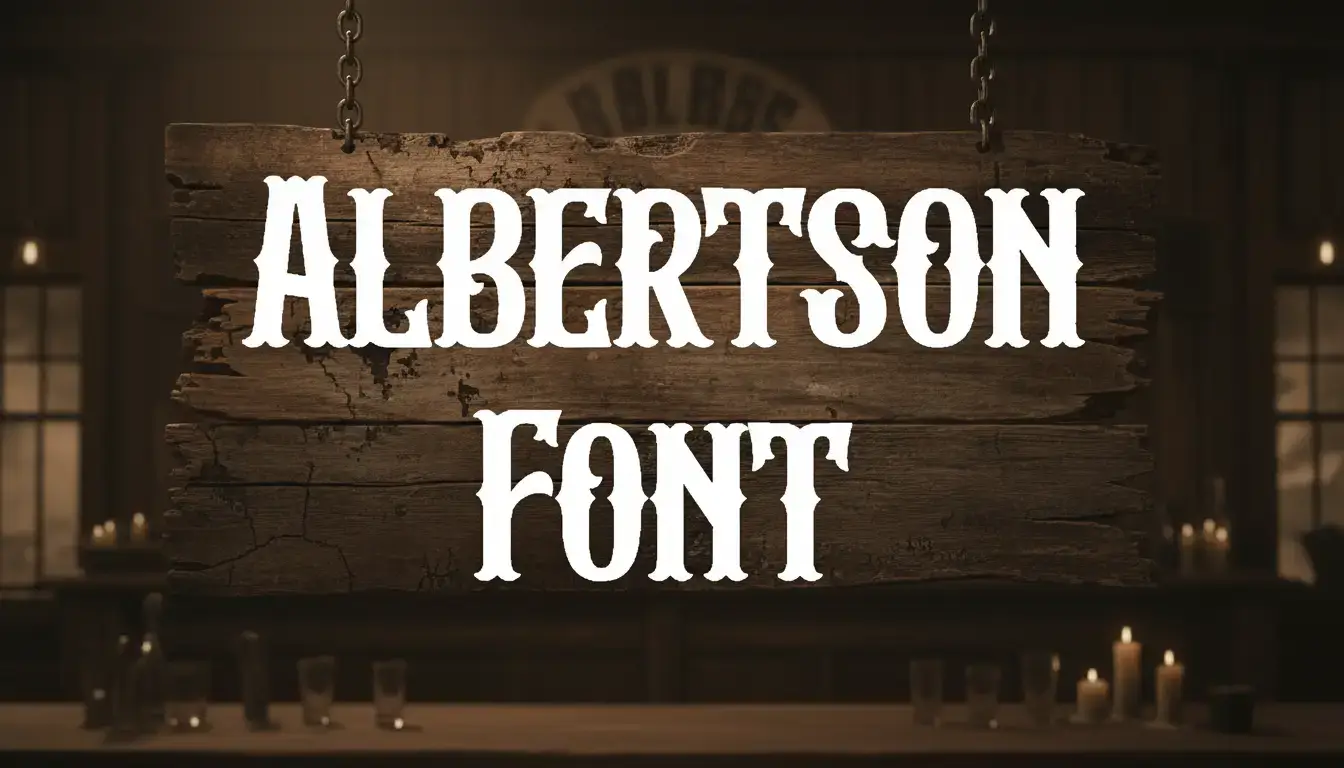
Albertson Font
Albertson
Albertson is a Western font designed by Ahmad Ramzi Fahruddin and published by Arterfak Project. Its letters feel straight out of a cowboy movie, sturdy and full of old-west character. You can download it for free and test it with your own words in the preview above.
What You Can Type With Albertson
With complete upper and lowercase letters and all ten digits, Albertson is ready for real wording, not just a single headline. Everyday marks like &, !, ? and @ are there too. There are no accented letters like é or ñ, so it's best kept to English text.
Where Albertson Works Best
Designers usually reach for fonts like Albertson when they're making rodeo posters, saloon signs and country music flyers. Try it in brown, rust or cream on a paper texture for the full old-west look.
Does Albertson support accented letters?
No. Albertson has no accented letters such as é, ñ or ü, so it's best for English text.
What fonts pair well with Albertson?
A sturdy slab serif or a simple serif works well for the smaller text.